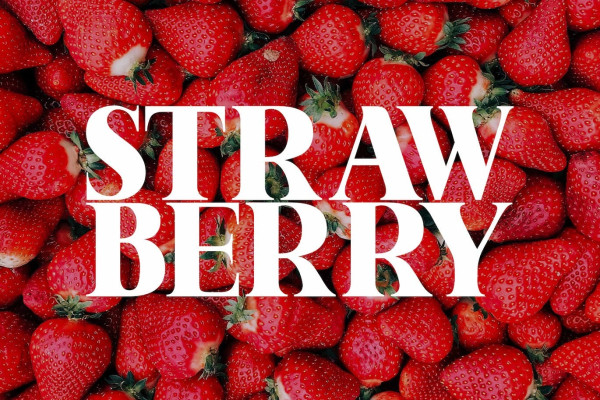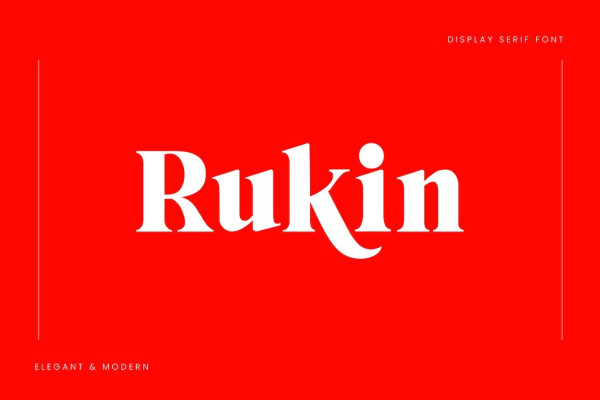
Rukin Font
Rukin Font is a Brand New Elegant Serif Typeface. It has a dependable and uncompromising style, with controlled letterforms and modern touches. It looks amazing in logos, magazines, and movies. Rukin Font is created with all the tasks of a corporate font and also for the usage in a variety of projects, including branding, logos, titles, headlines, posters, screens, display, digital ads, and everything else.
The Rukin Typeface has only one weight – Bold. All offer wide language support, upper and lower cases, numerals and extended punctuation.